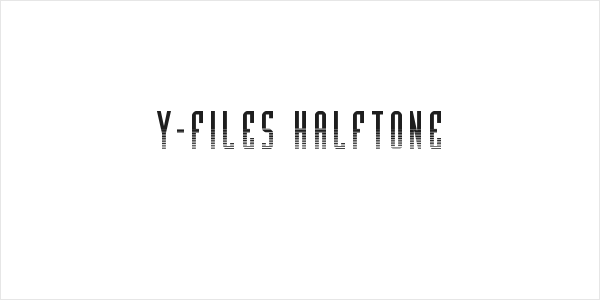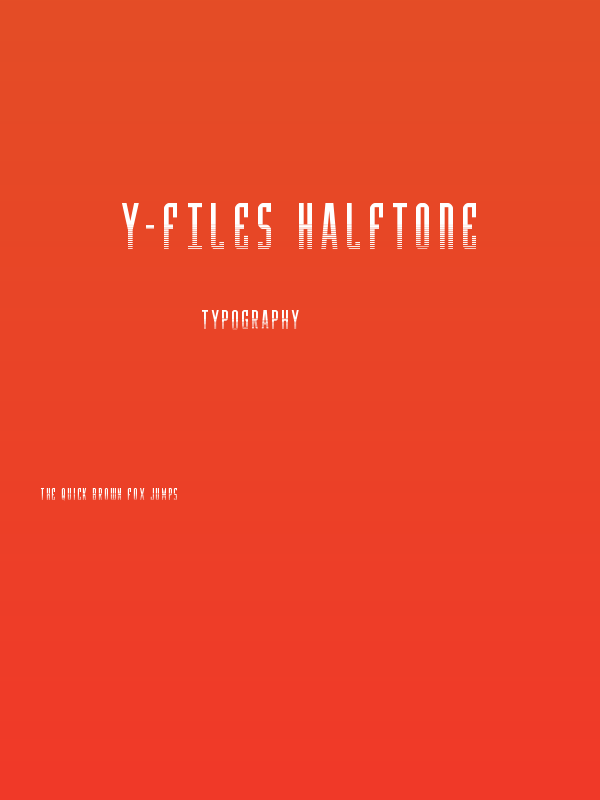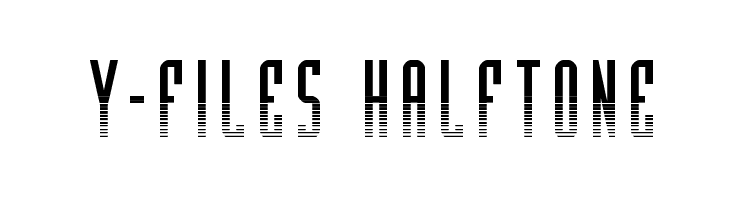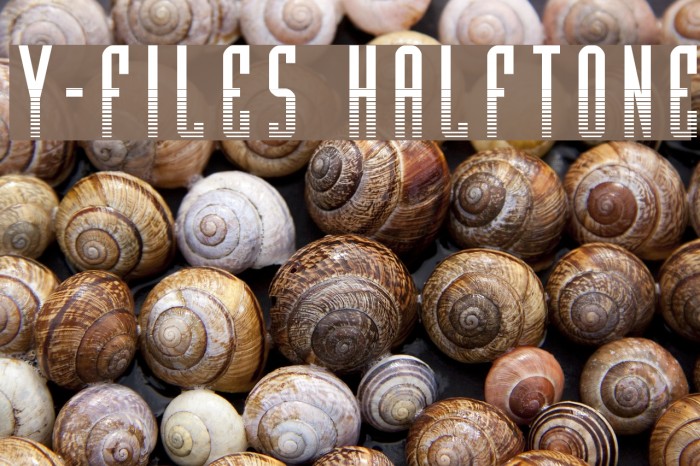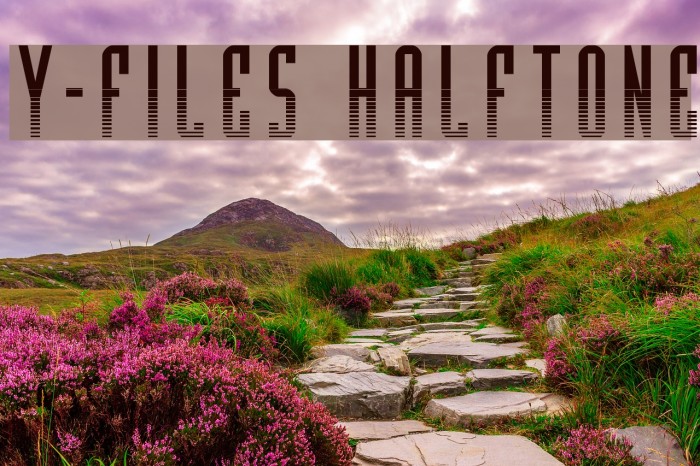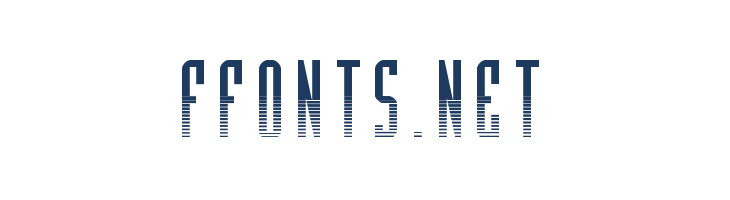
Y-Files Halftone Font
Y-Files Halftone Description
This font features a unique halftone effect, where each character is composed of horizontal lines that create a gradient-like appearance. The uppercase and lowercase letters maintain a consistent geometric structure, with vertical alignment and a modern aesthetic. The numbers and special characters follow the same design principle, ensuring uniformity across all glyphs. The font's distinct style makes it stand out, offering a visually striking appearance that is both contemporary and artistic. Its design is suitable for projects that require a bold and innovative look, capturing attention with its creative use of line patterns.